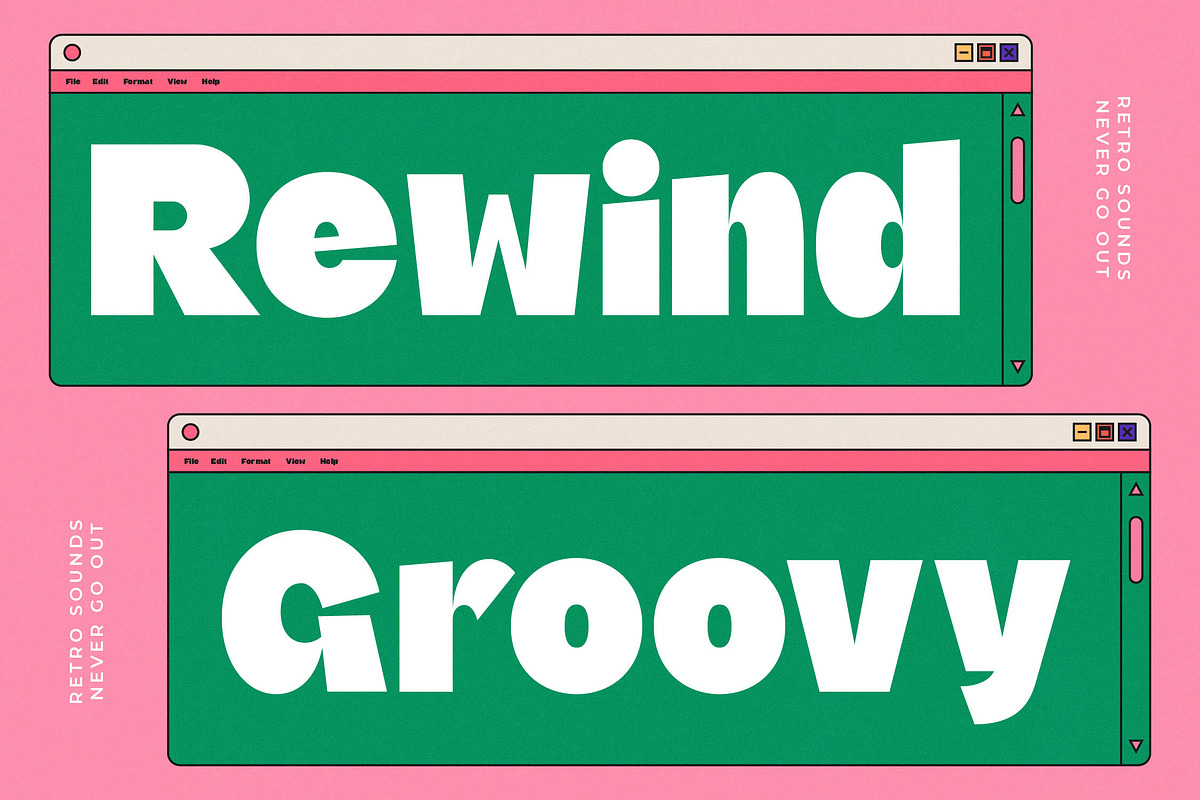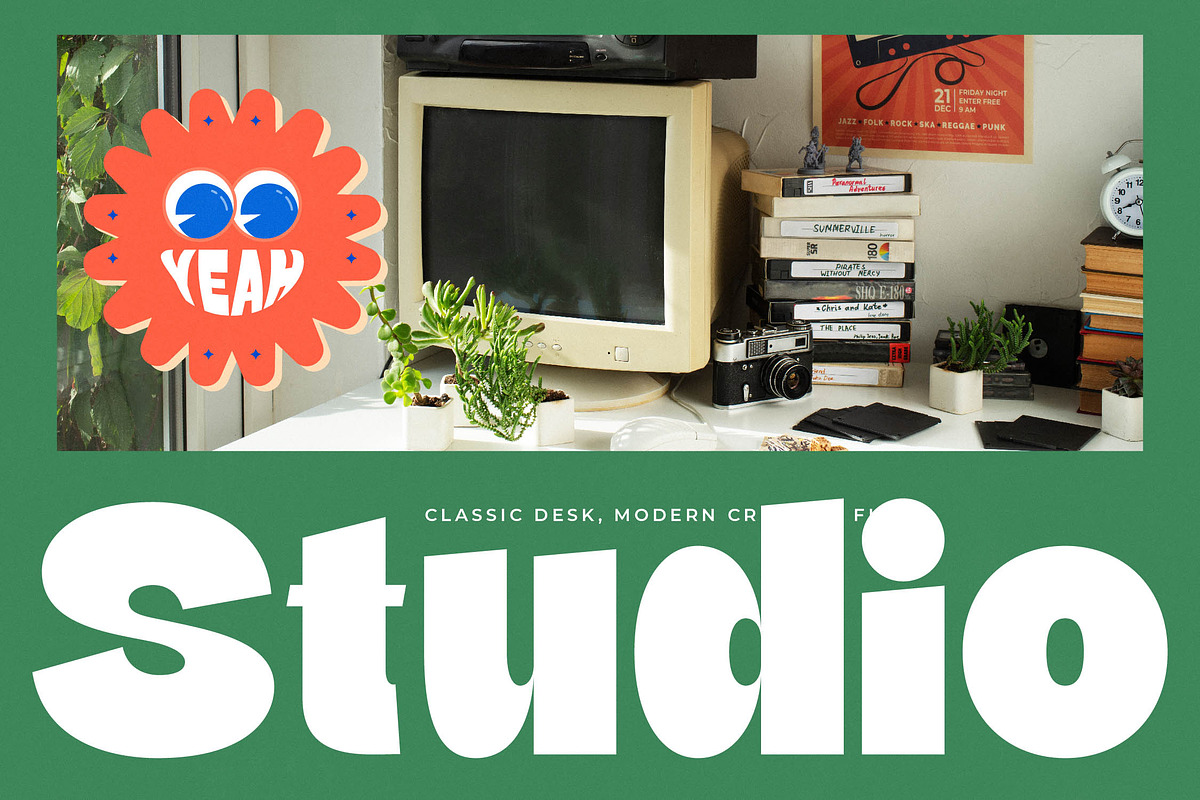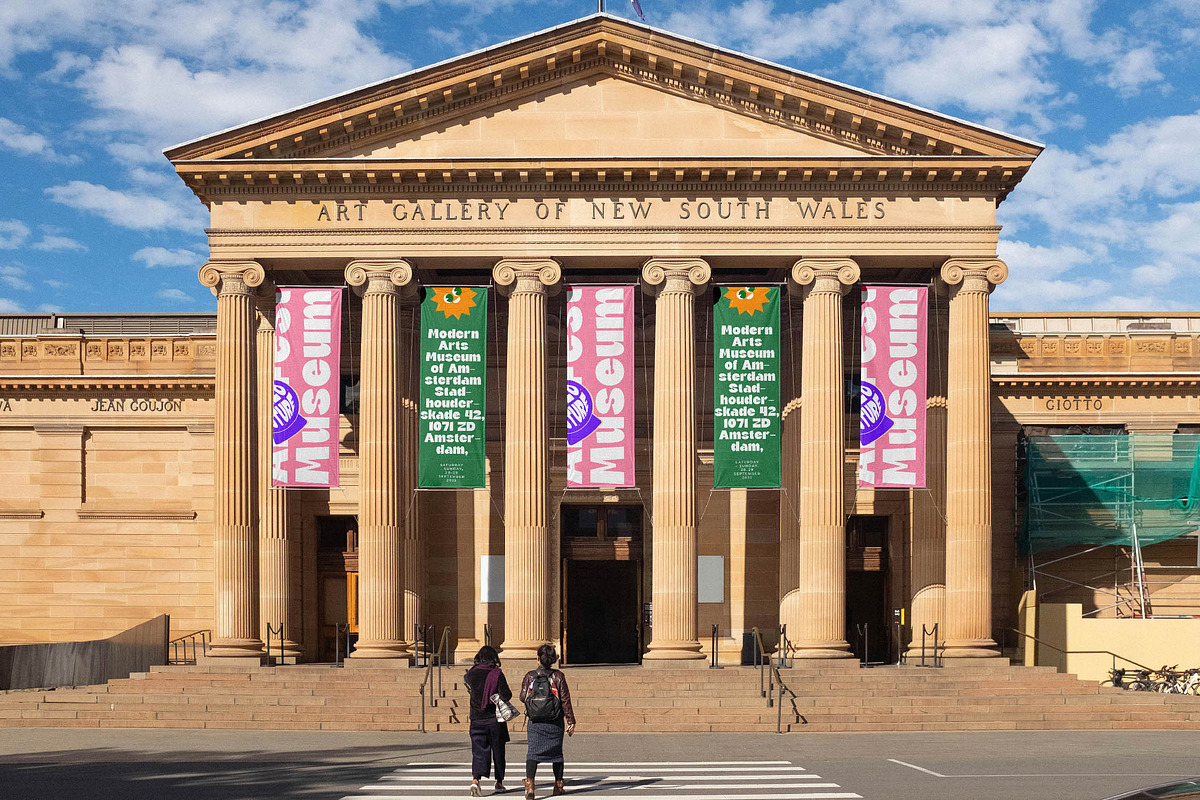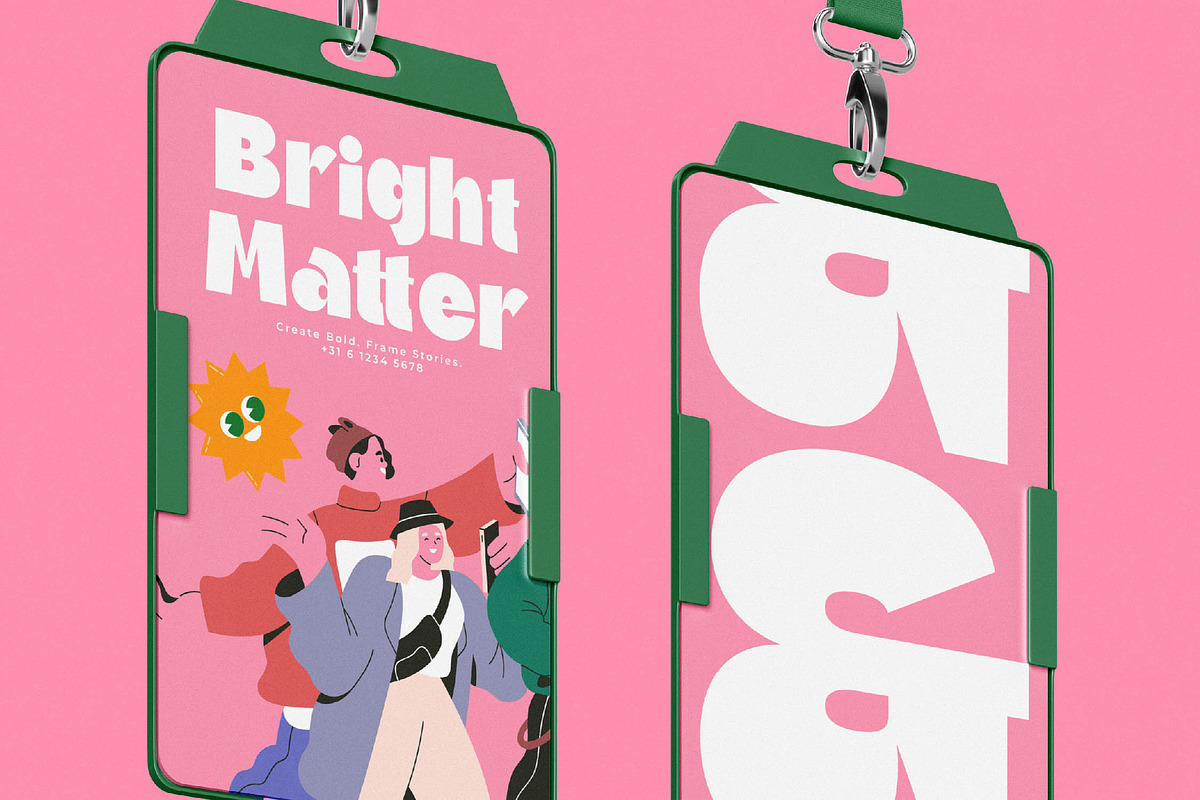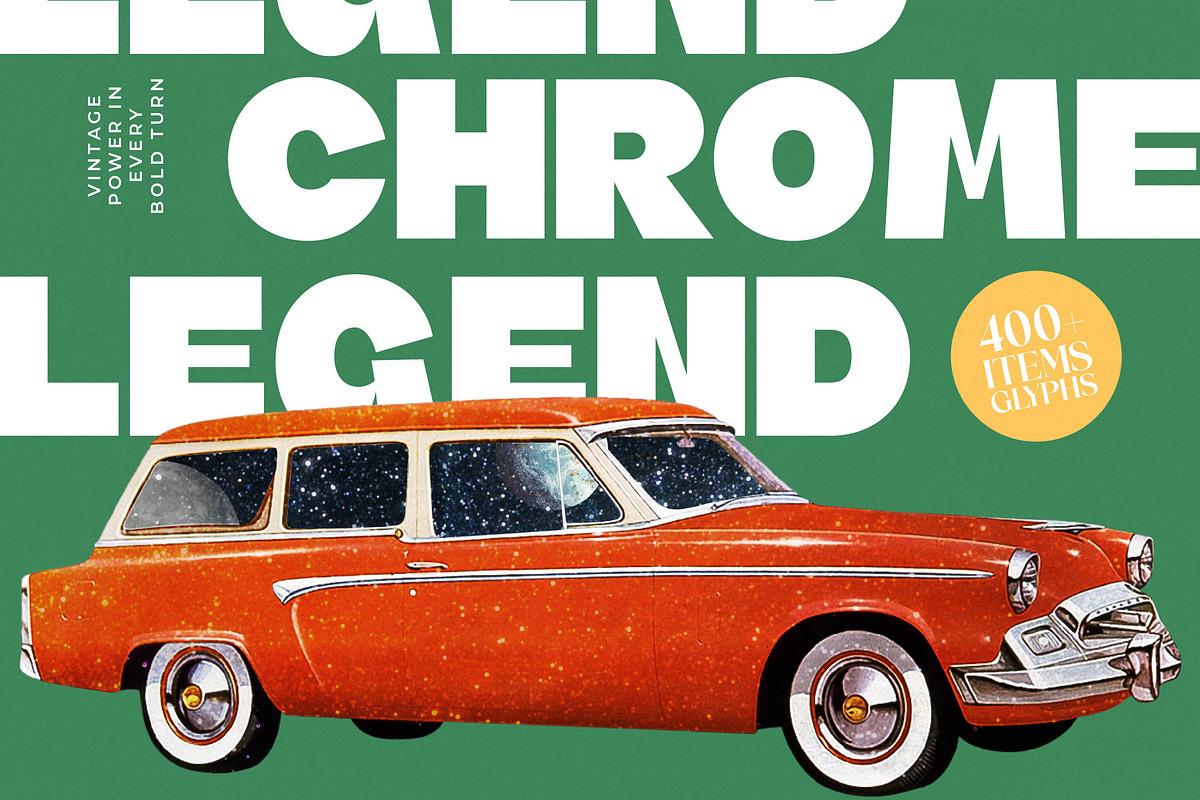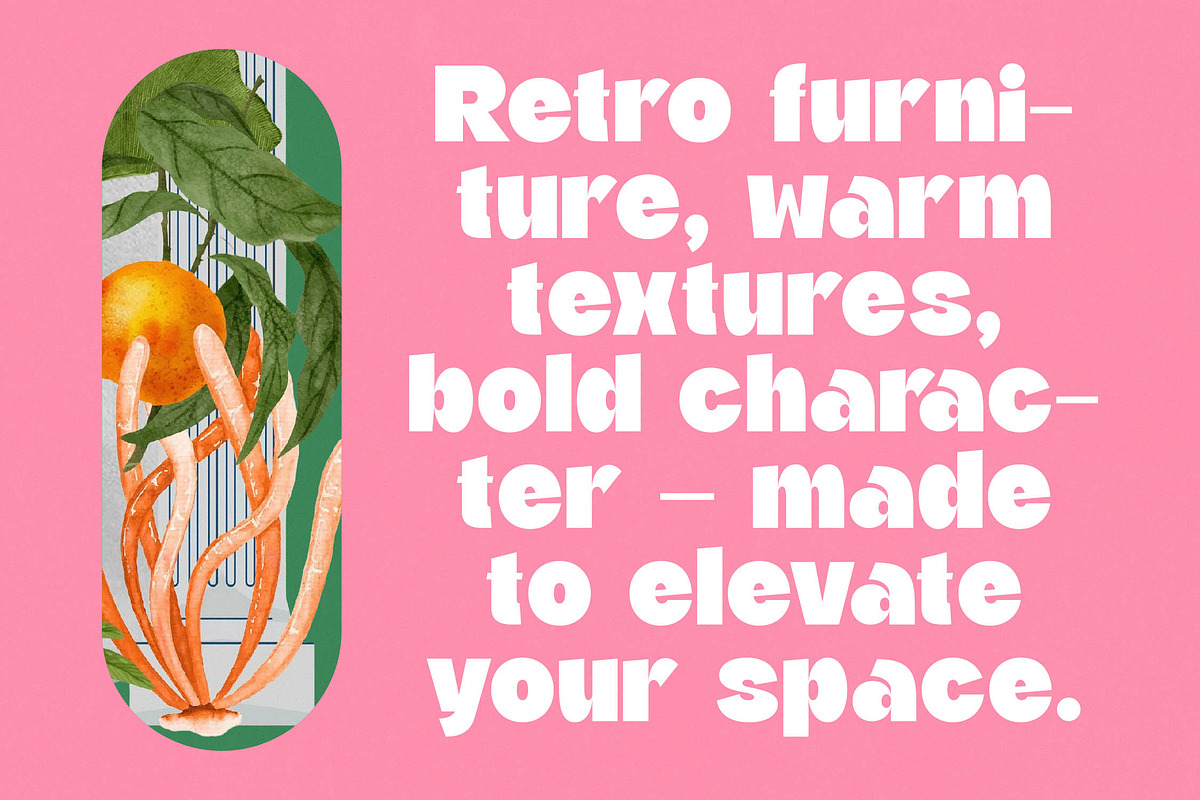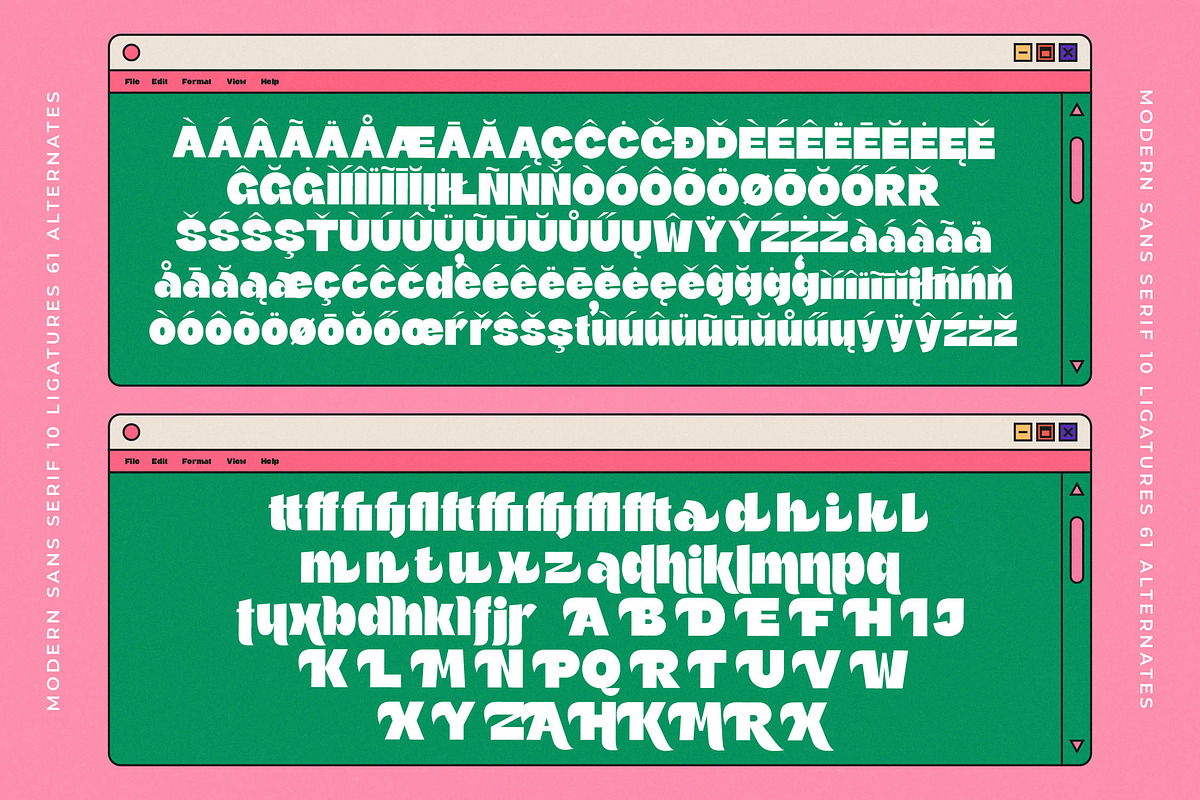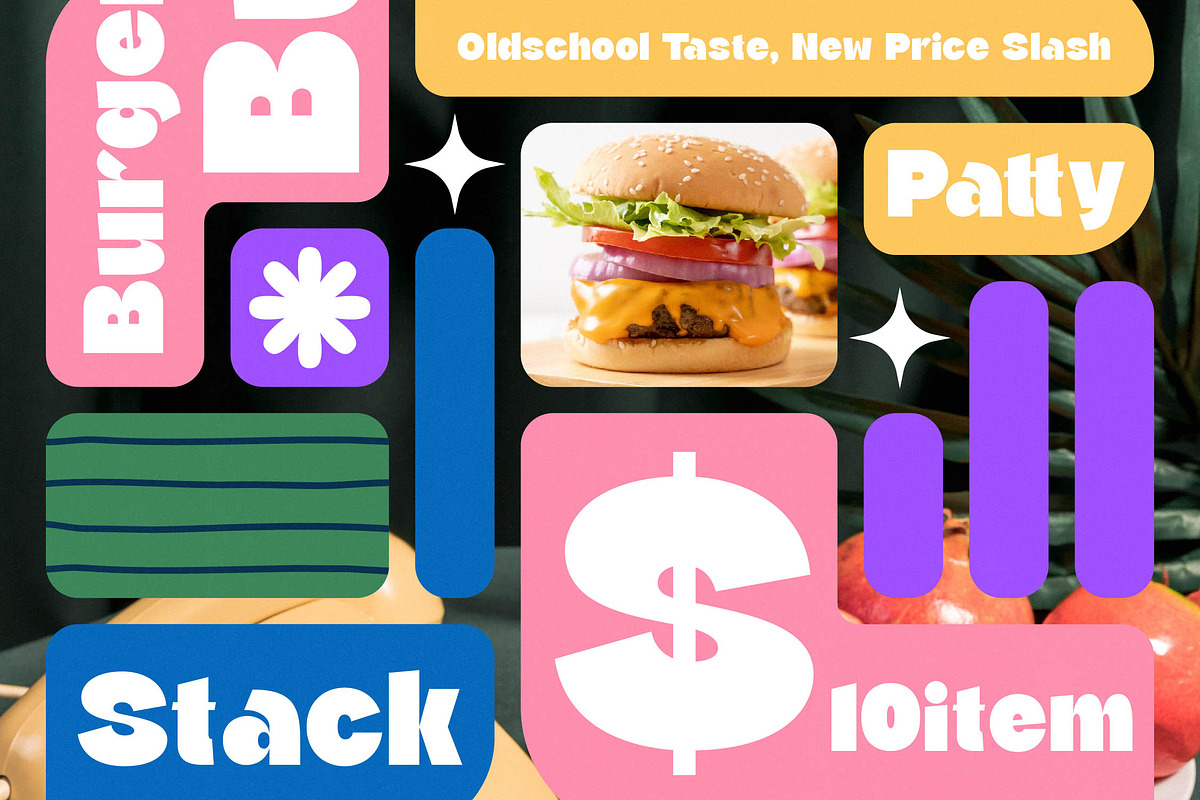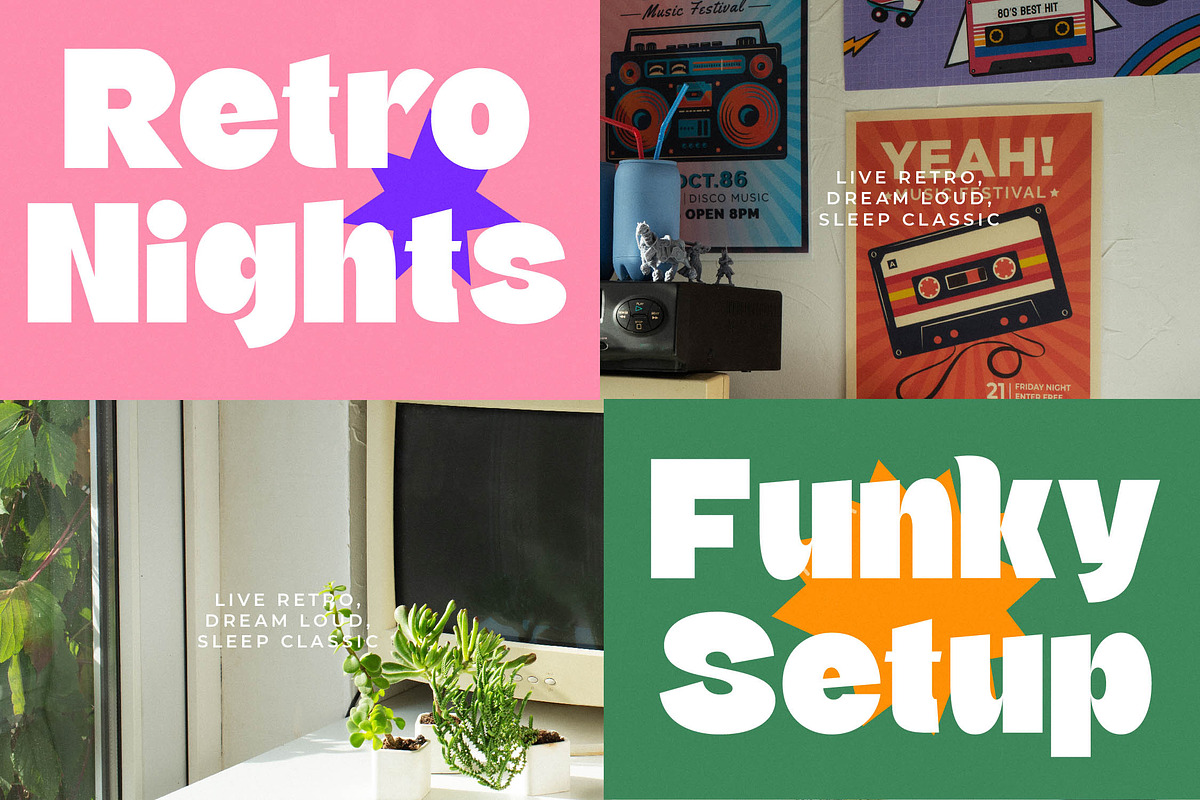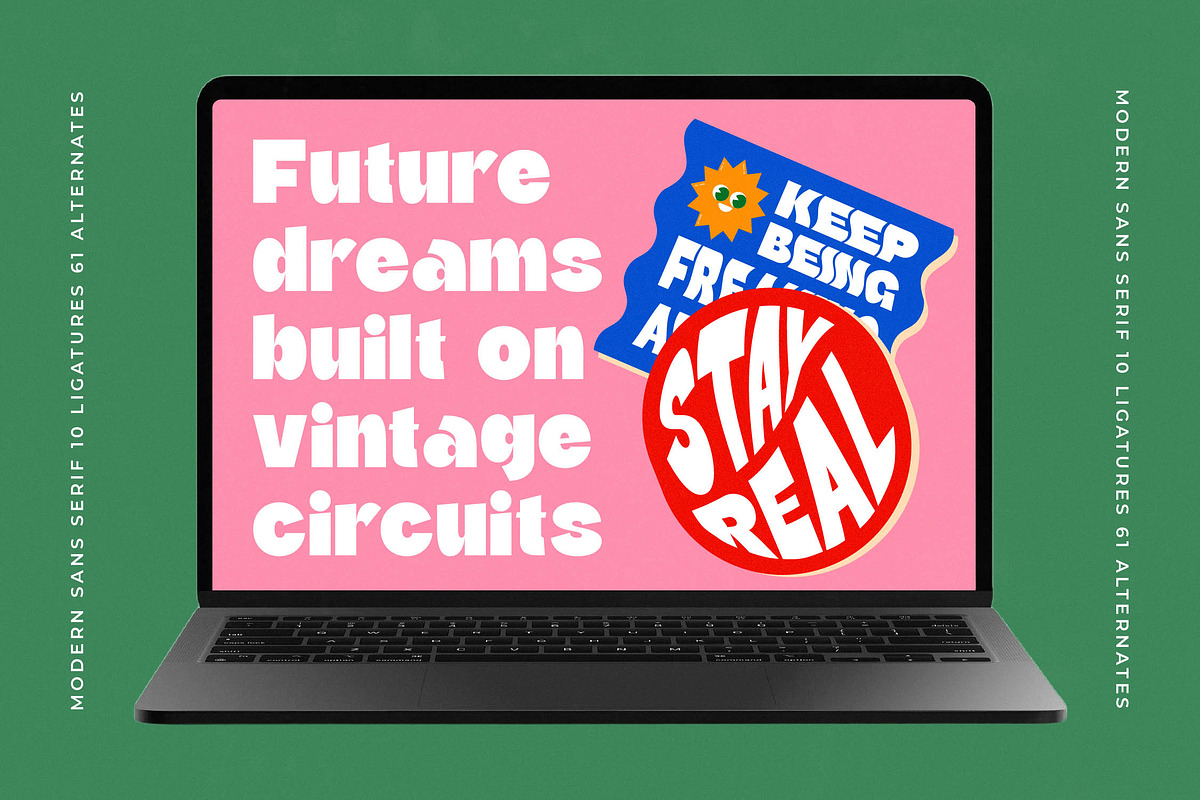
Rapid Squad Modern Display Sans
Rapid Squad is a visual powerhouse designed to inject personality and high-energy impact into your next creative project. This typeface masterfully balances bold, chunky silhouettes with a contemporary edge that demands attention in any digital or print landscape.
Inspired by the intersection of 90s tech interfaces and urban street culture, the font creates a vibrant atmosphere that feels both nostalgic and futuristic. Its playful curves and massive weight evoke a sense of confidence and movement, making it the perfect choice for creators who want to lead the pack.
As a versatile modern serif display alternative, it provides a unique luxury typography feel while maintaining its rebellious, high-impact roots. This high-contrast serif inspired design serves as a powerful editorial font that guarantees significant branding impact for clients looking to stand out.
Riding the height of the modern serif trend, this typeface meets the industry need for expressive editorial display fonts. It provides a refreshing break from sterile minimalism, offering character-driven typography that speaks volumes through its distinctive alternates and energetic forms.
From high-end logo design to cohesive visual branding, this typeface is built for versatility. It is an ideal solution for modern editorial layouts, eye-catching packaging, unconventional wedding stationery, and avant-garde fashion lookbooks that require a bold voice.
This expansive typeface features over 400 glyphs, including 10 ligatures and 61 alternates that allow for deep customization. It also includes comprehensive multilingual support and international characters, ensuring your message resonates clearly across global markets without the need for additional swashes or external sets.